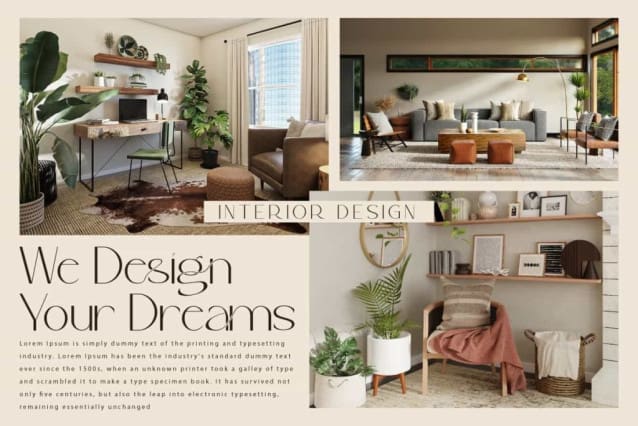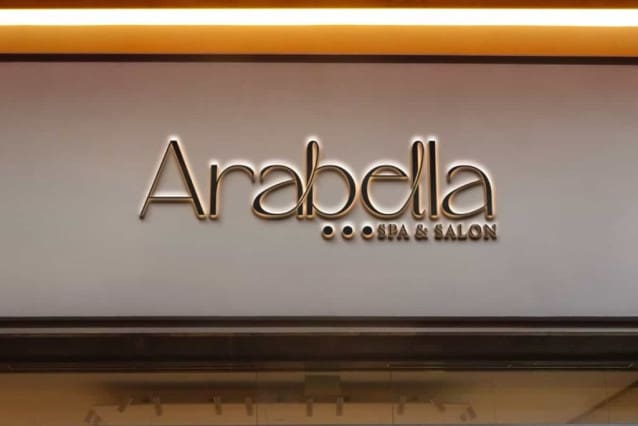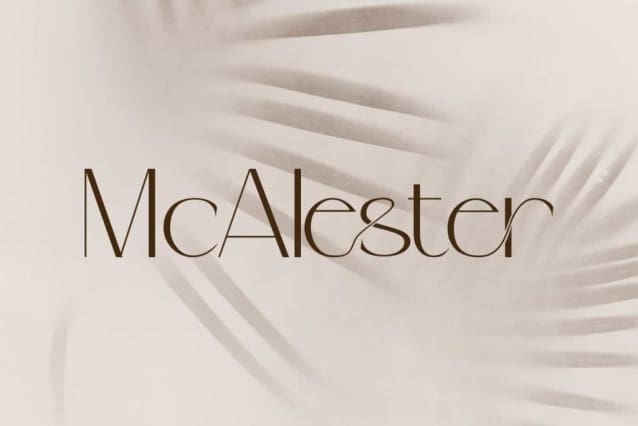
McAlester Font
McAlester Font is a stylish minimalist sans serif display font by VinType Studio. This font has a clean and elegant appearance, making your design look exclusive. It will suits many designs, such as cover, custom design, gift box, invitation, label, poster, product packaging, quotes, screen printing, signage, stationery, title, website, and more!
McAlester Font includes full set of Uppercase and Lowercase Basic Characters, Numerals, Punctuation, and Symbol. This font also contain Ligature characters so will be perfect for many industries, such as accessories and jewelry, advertising, beauty product, event or wedding organizer, fashion, florist, furniture, perfume, resort, restaurant, etc.